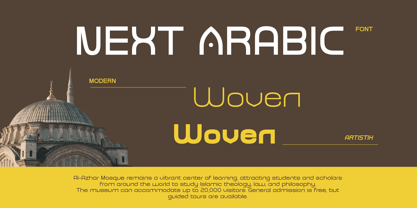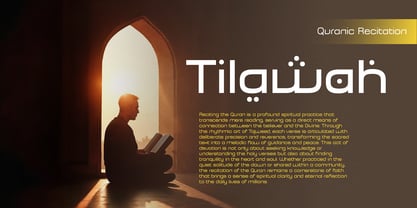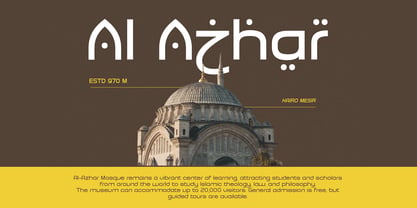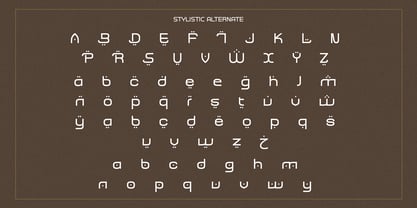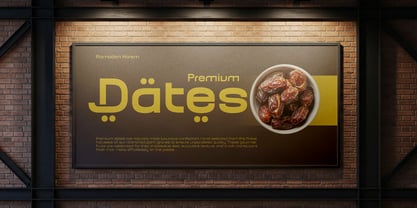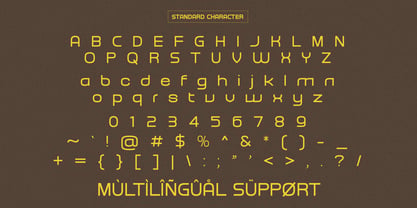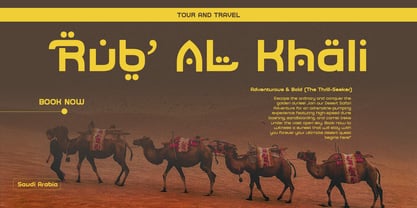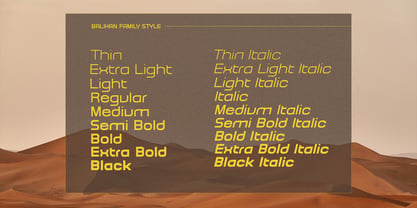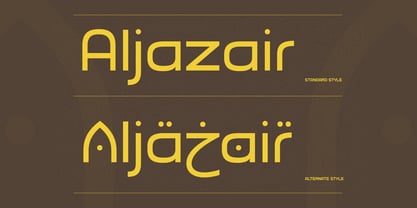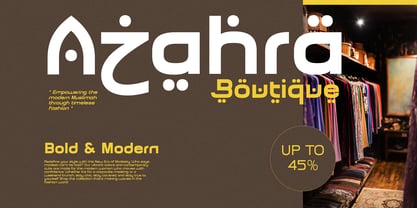
Balikan
by Laroyba Type
The Balikan Font Family was designed by Habib Abdur Rofi and published by Laroyba Type. Balikan contains 18 styles and family package options. More about this family
Balikan is a futuristic Arabic-inspired sans serif font family that blends modern geometric precision with elegant Middle Eastern aesthetics. Designed for creators who want a distinctive, premium, and forward-looking visual identity, Balikan delivers a unique fusion of cultural influence and contemporary typography. With its smooth curves, subtle Arabic calligraphic nuances, and clean sans-serif structure, Balikan is perfect for branding, editorial design, tech projects, luxury packaging, film titles, and digital interfaces. This typeface stands out with its strong visual personality while maintaining high readability, making it suitable for both display and semi-body text usage. 🔹 Key Features 18 font styles (Thin to Black) Futuristic & modern design Arabic-inspired letterforms Clean geometric sans serif structure Multilingual support Alternates & stylistic variations Perfect for high-end and creative projects 🔹 Perfect For Branding & logo design Technology & startup projects Luxury & premium packaging Editorial & magazine layouts Film posters & cinematic titles Social media graphics UI/UX and digital design
Designers: Habib Abdur Rofi
Foundry: Laroyba Type